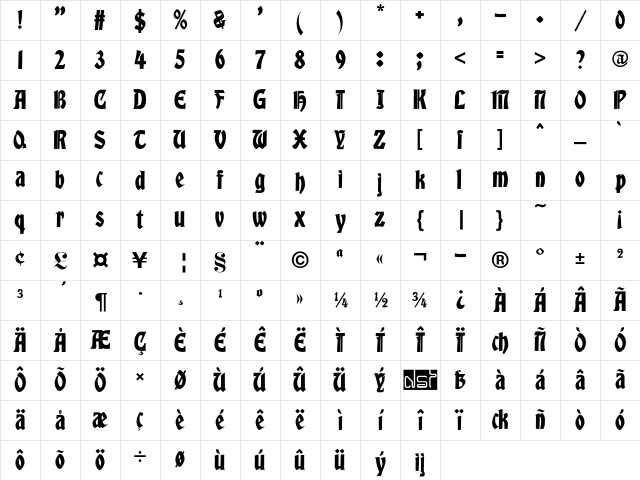
Albert Text Bold Free Font
Albert Text Bold
Designer: Dieter Steffmann
Design Context for Albert Text
Albert Text is a composed and adaptable typeface that performs quietly and consistently across a wide range of design contexts. Its bold stroke weight gives it real presence on the page.